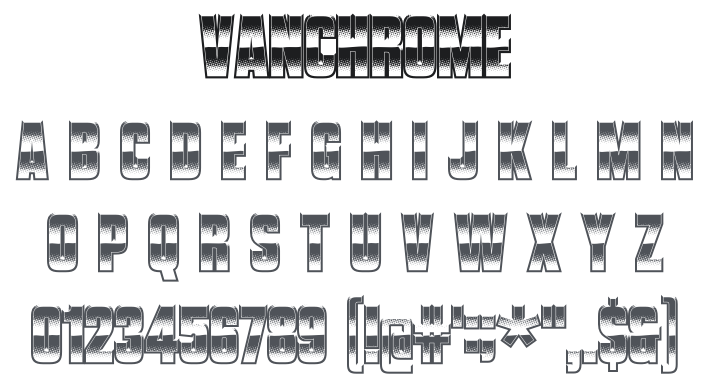
Vanchrome Font Family
About Vanchrome
Vanchrome is a compact, narrow geometric sans-serif display typeface built specifically for airbrushed chrome lettering effects — its clean, all-caps letterforms come in 14 layerable files (Back, Front, Horizon, Ground, Sky, Left, Right, Up, Down, Grid, Edge, Sparkle, Clear, Outline) that stack together to create stunning metallic chrome illusions. Perfect for retro van culture graphics, hot rod lettering, neon signage, 80s-themed posters, and any design needing dazzling, polished chrome personality.